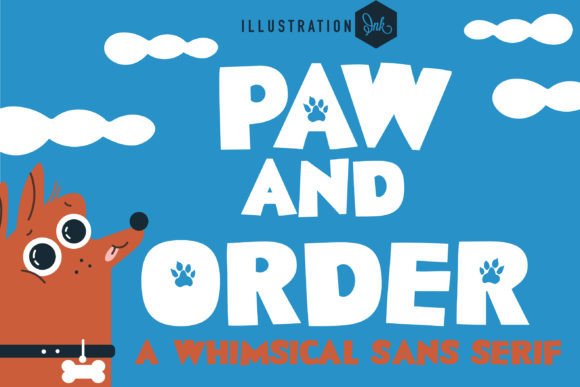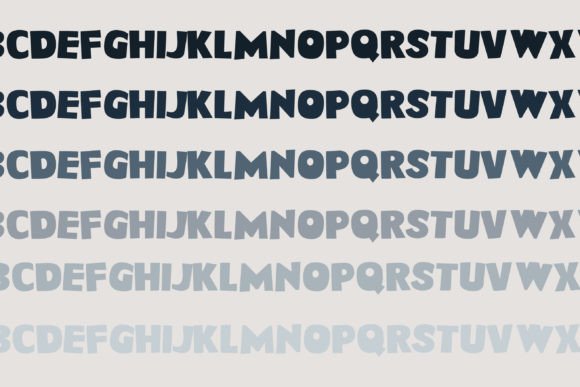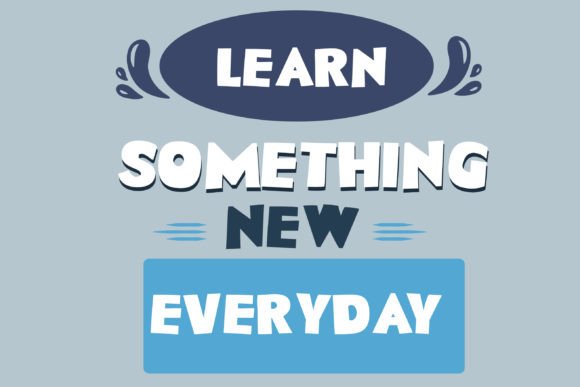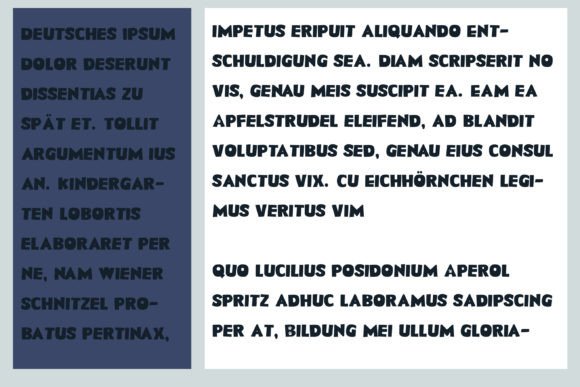
Paw and Order Font
About the Paw and Order Font
Crafted with precision, the Paw and Order Font is ready to bring your ideas to life. This hand-crafted whimsical font is a chunky, sans serif with “paw prints” here and there.
Paw and Order excels in headlines, logos, and short-form text for children’s products, playful branding, and whimsical packaging designs. Its chunky nature and unique paw print details make it highly memorable but less suitable for body copy or UI elements where readability over long stretches is crucial.
The font’s core personality is playful and friendly, yet bold enough to command attention. It would be ill-suited for serious or corporate applications.
Pairing Paw and Order with a clean sans-serif like Open Sans for body text or a classic serif like Garamond for a touch of elegance would create visually appealing and balanced designs. A simple geometric sans-serif could also work well to contrast its organic forms.
Paw and Order Font Example